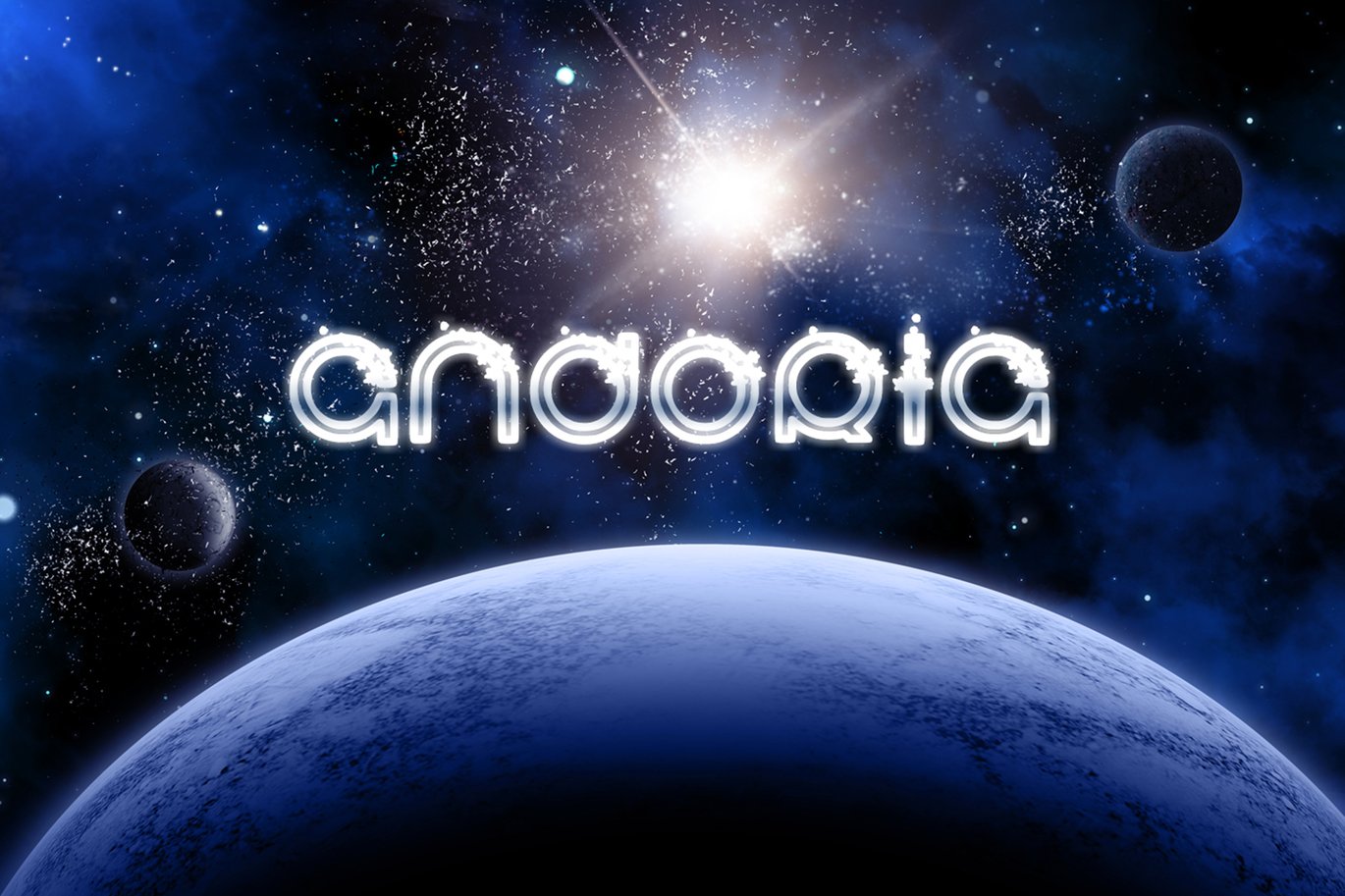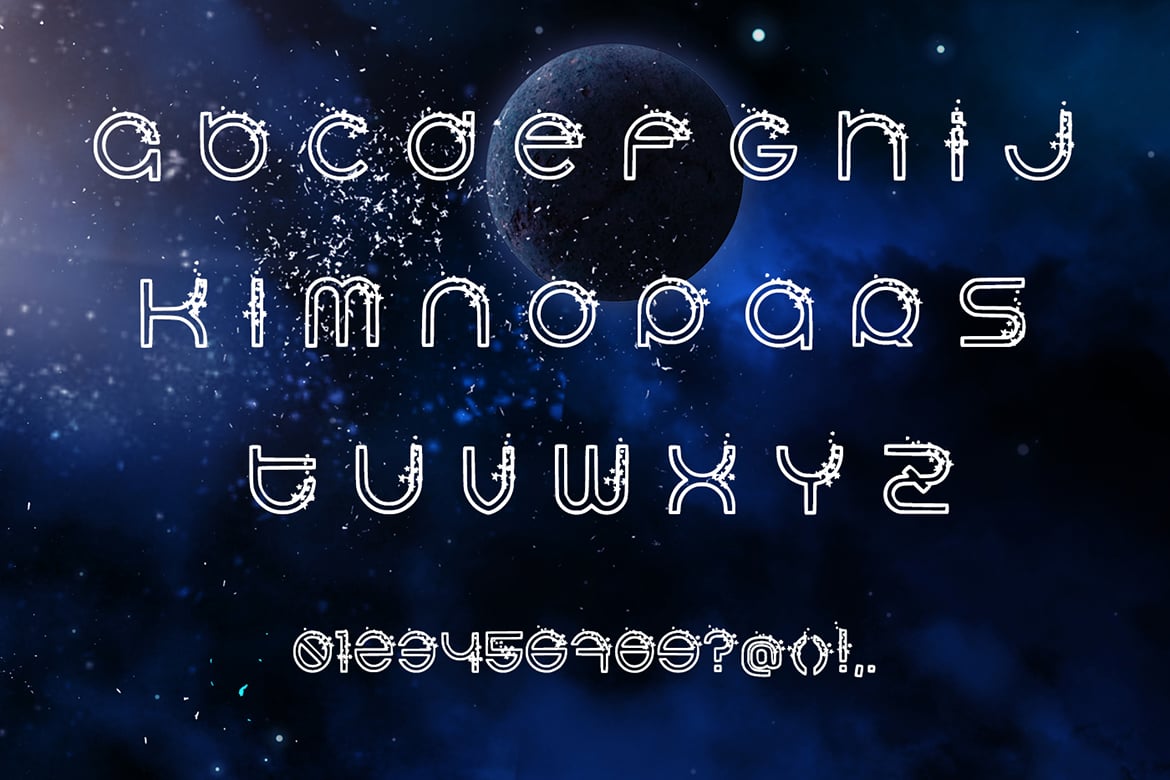
Andoria Sci-Fi Font
A modern typeface specifically made for fashion, sci-fi, cinematic and unique statement with a special charm that makes it perfect for beautiful headlines, branding, logotypes & display usage. This all-caps typeface is also perfect for creating outstanding logos, promotional content and marketing graphics that can really grab attention from your visitors.